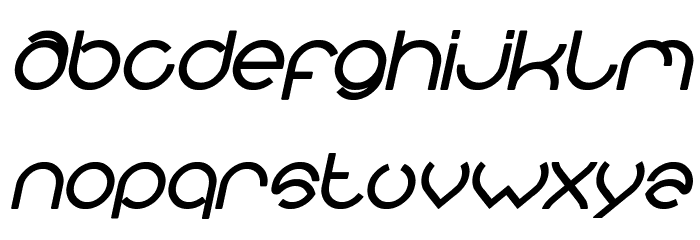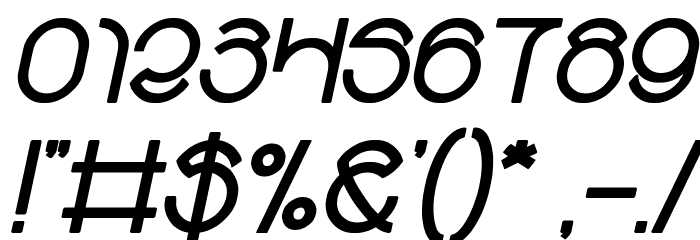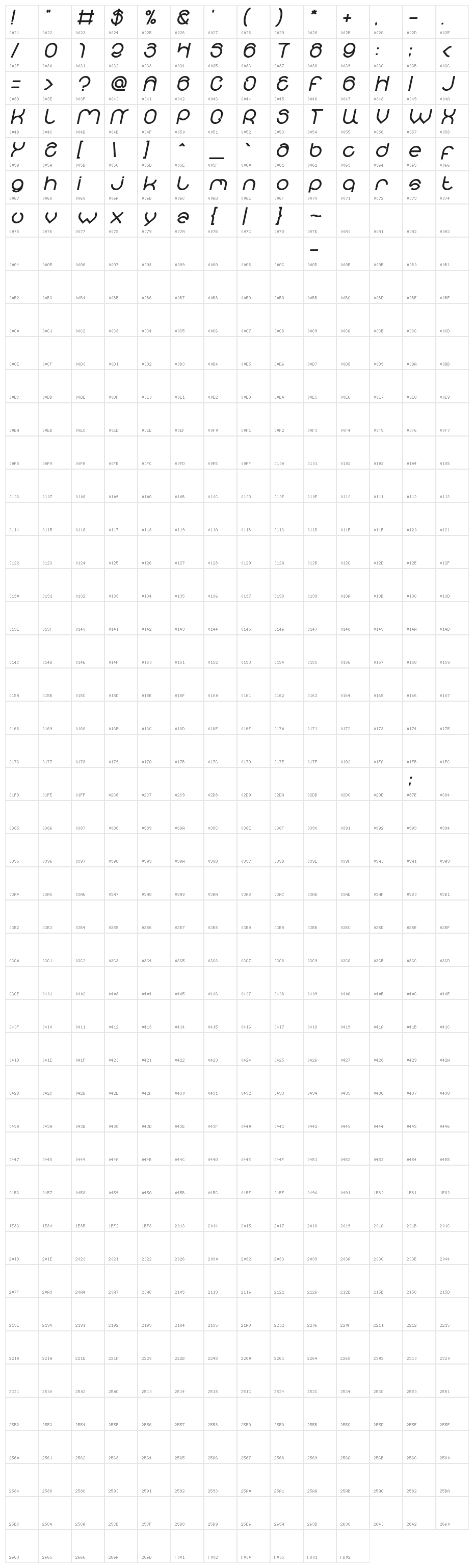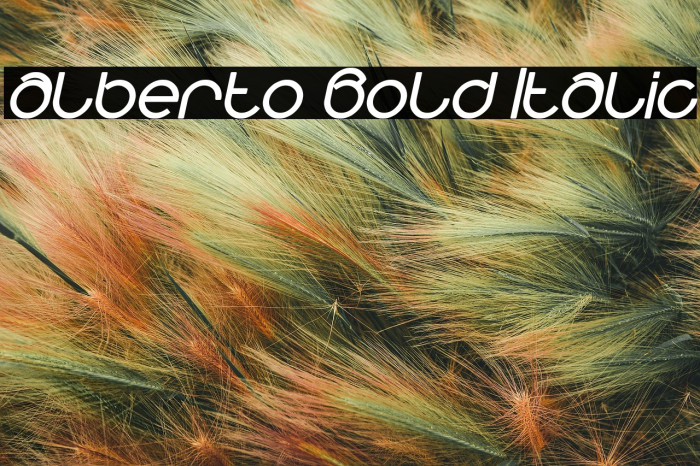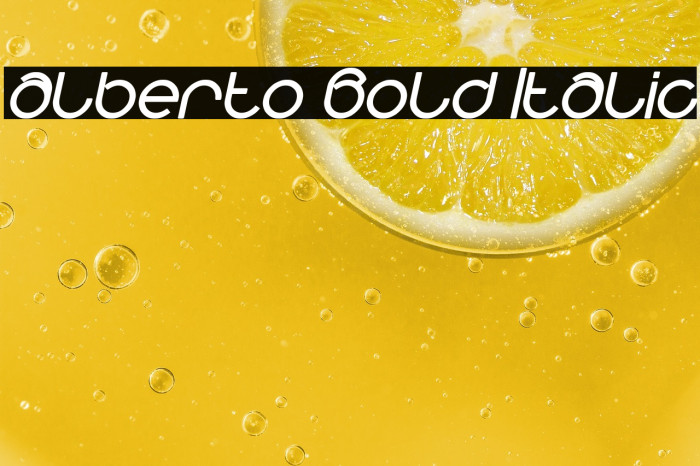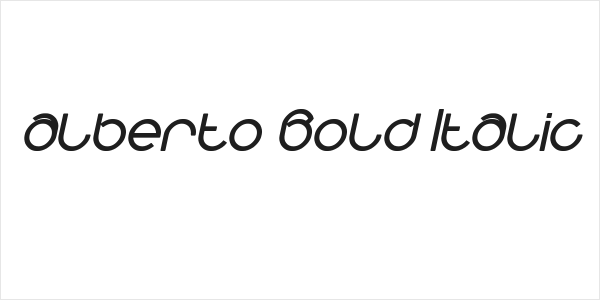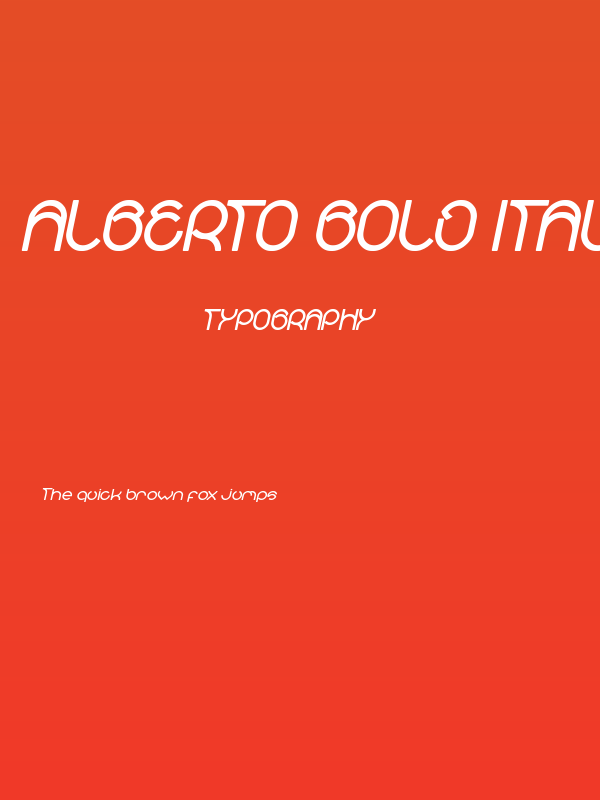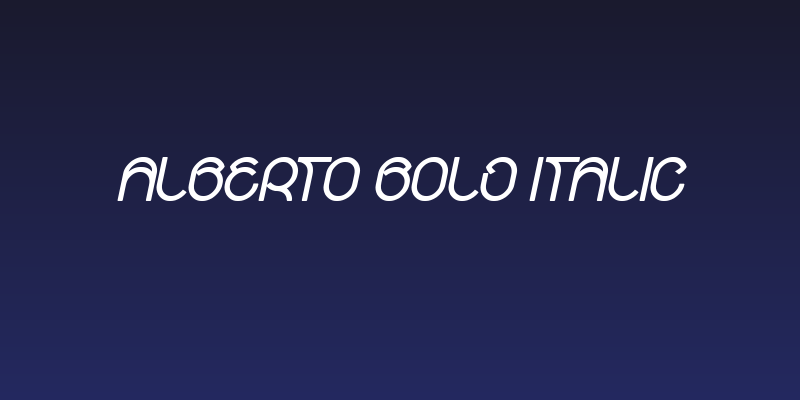
alberto Bold Italic Font
This font features a bold and italic style, characterized by smooth, flowing curves and a modern aesthetic. The letters are slightly slanted, giving a sense of motion and dynamism. The uppercase and lowercase letters maintain a consistent style, with rounded edges and a uniform stroke width that adds to its readability. The numerals and special characters are designed to match the overall style, ensuring a cohesive look across all text elements. This font is versatile, suitable for both digital and print media, and can be used to create a contemporary and stylish appearance in various design projects.
A bold, italic font with smooth curves and a modern, dynamic style.
- Proposed Projects: Ideal for branding, advertising, and editorial design projects that require a modern and stylish touch.
- Use Case: Headlines, Logos, Branding